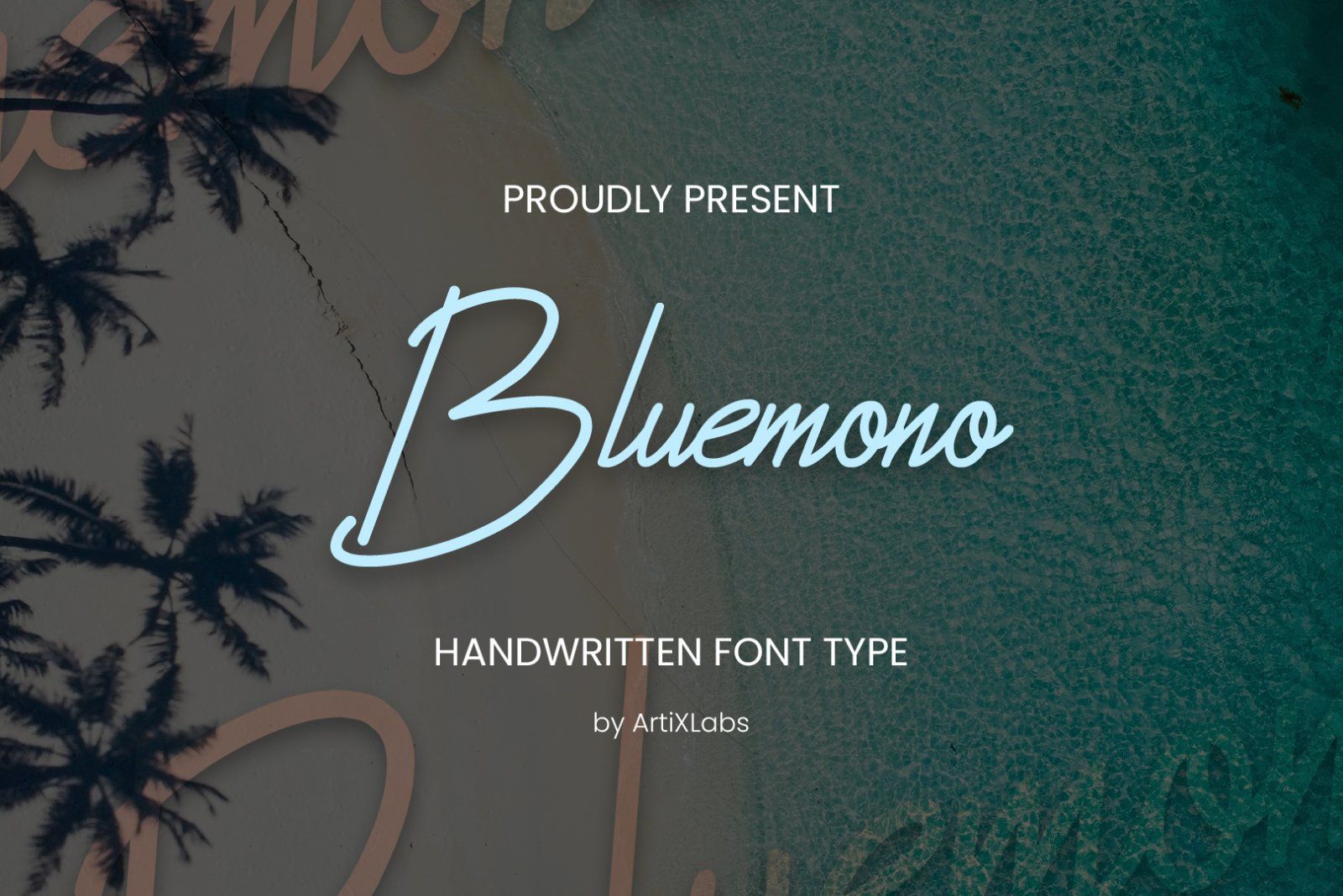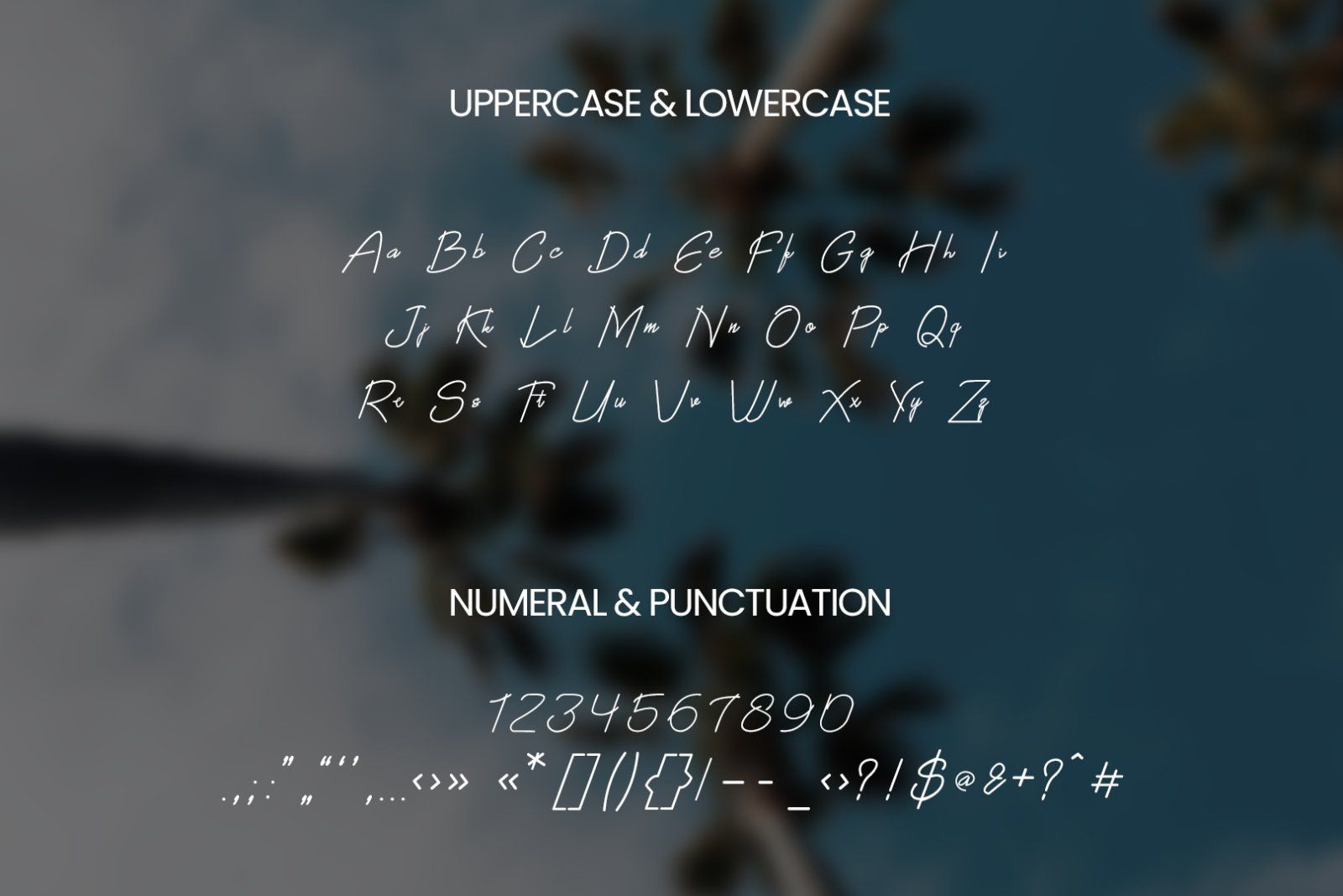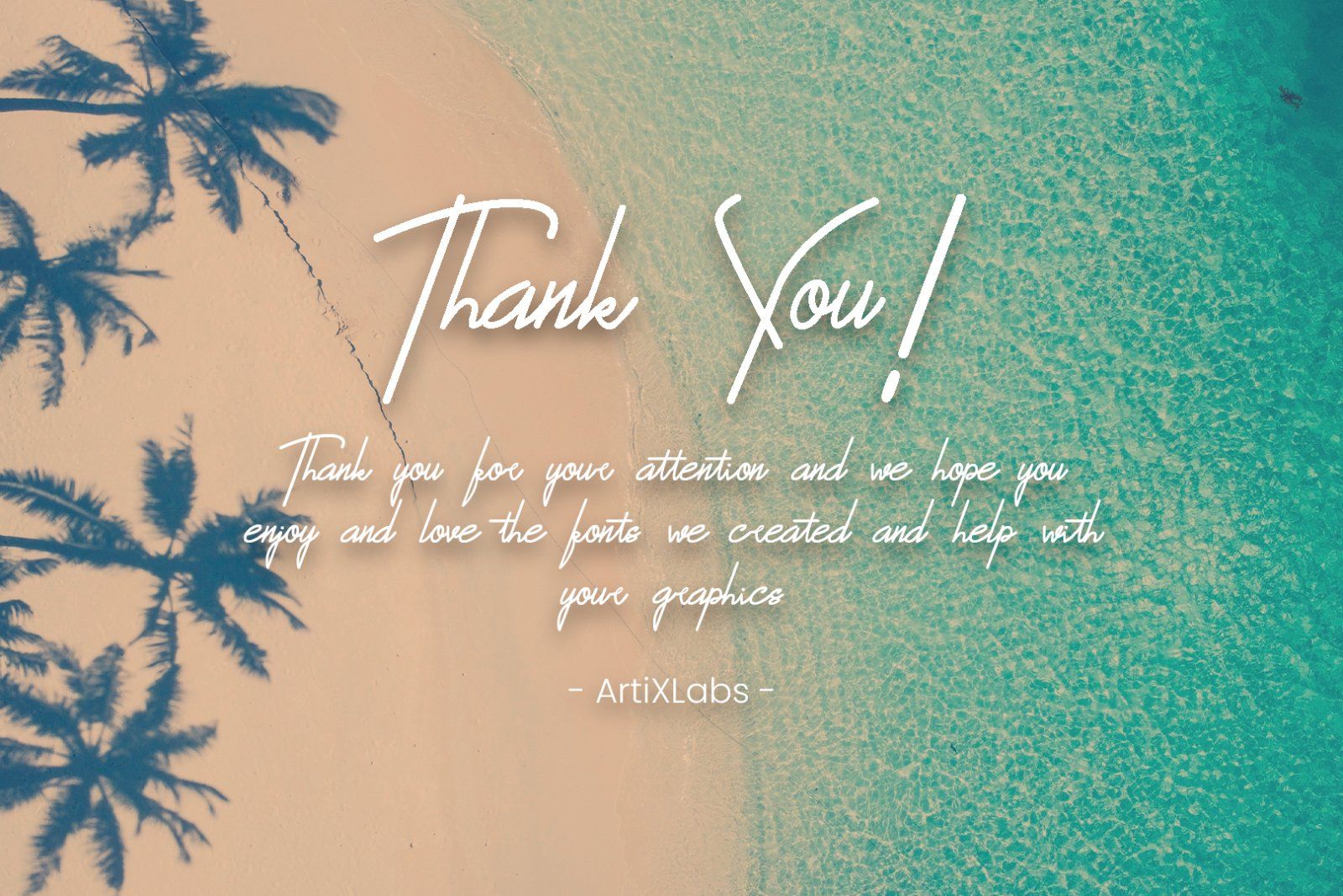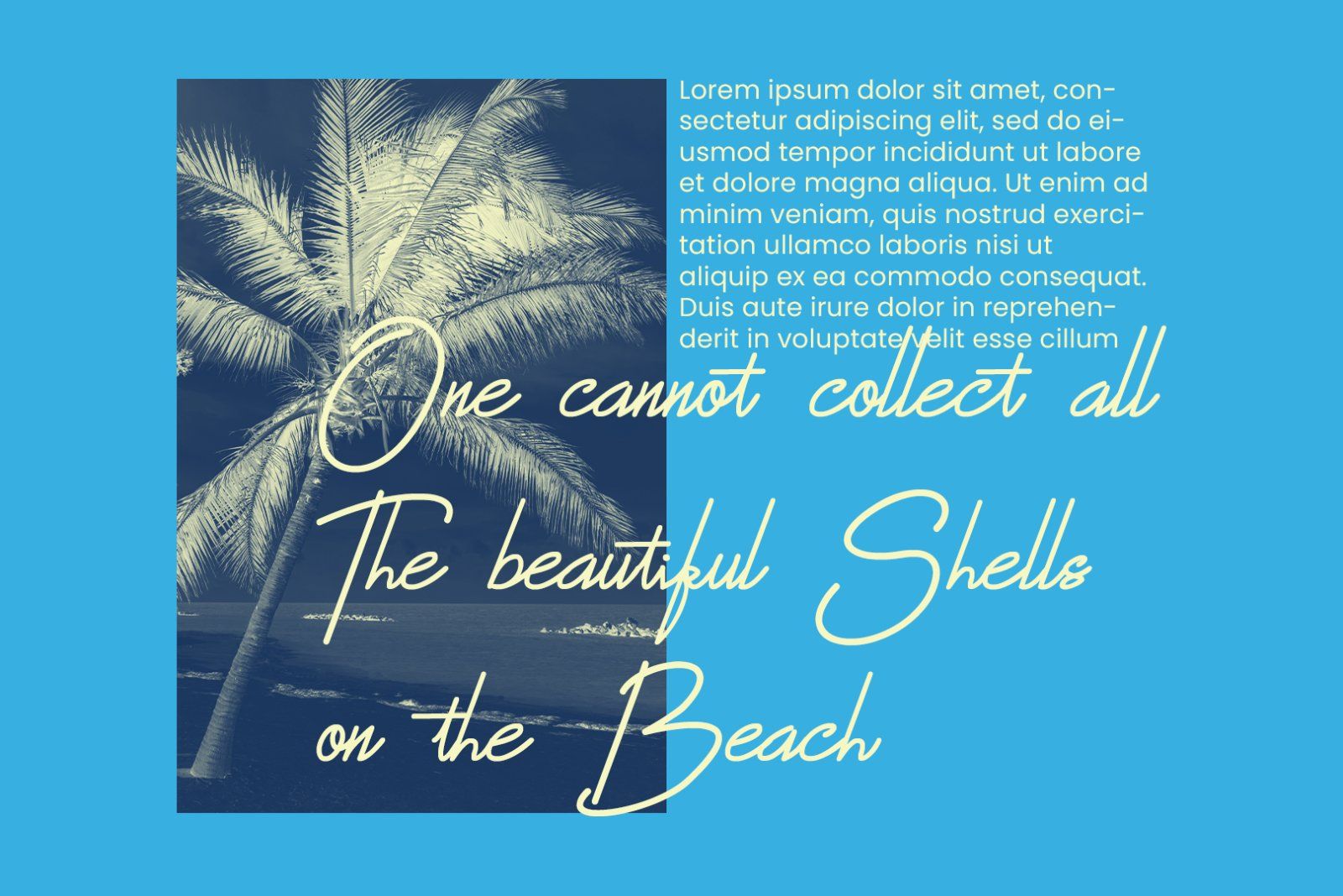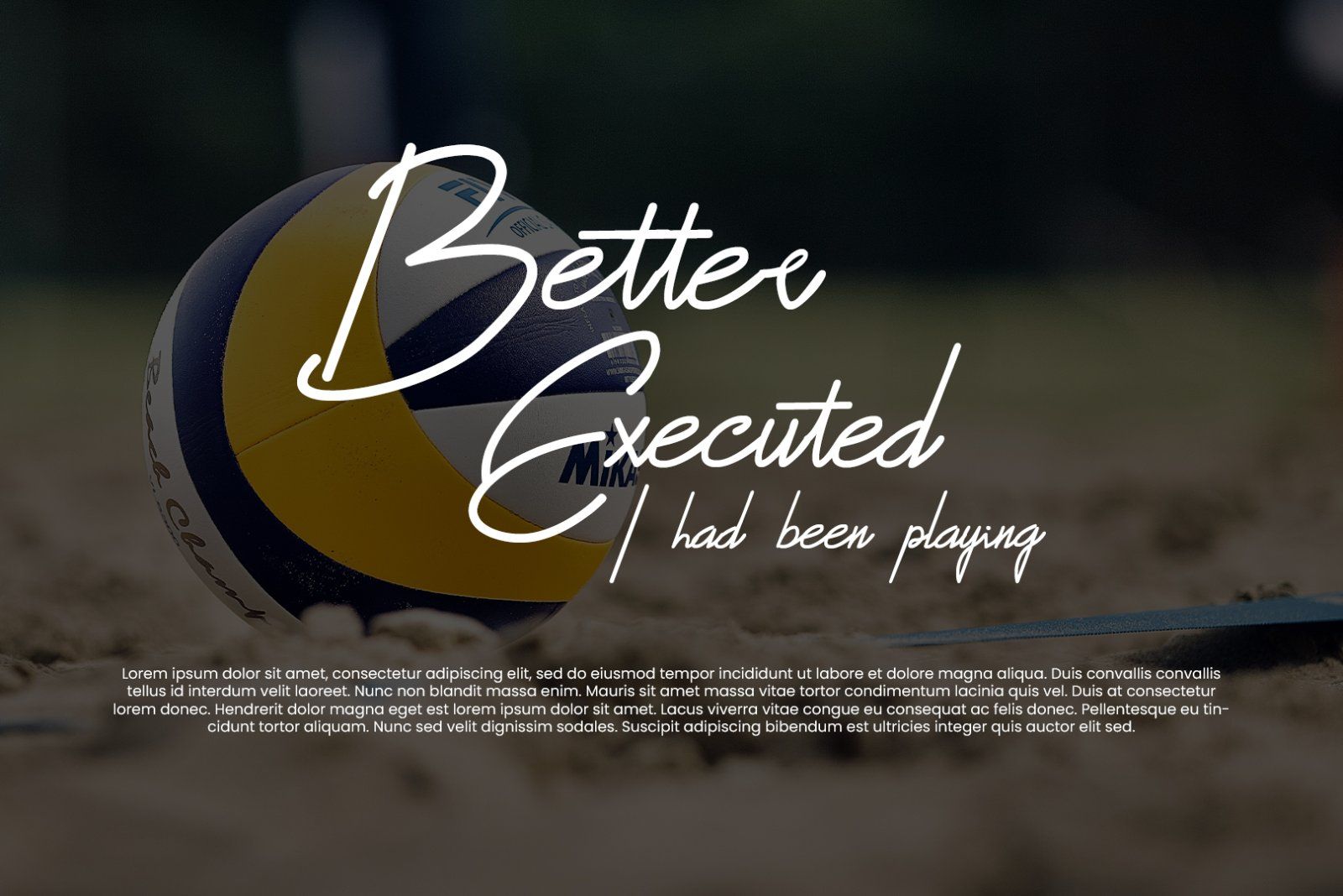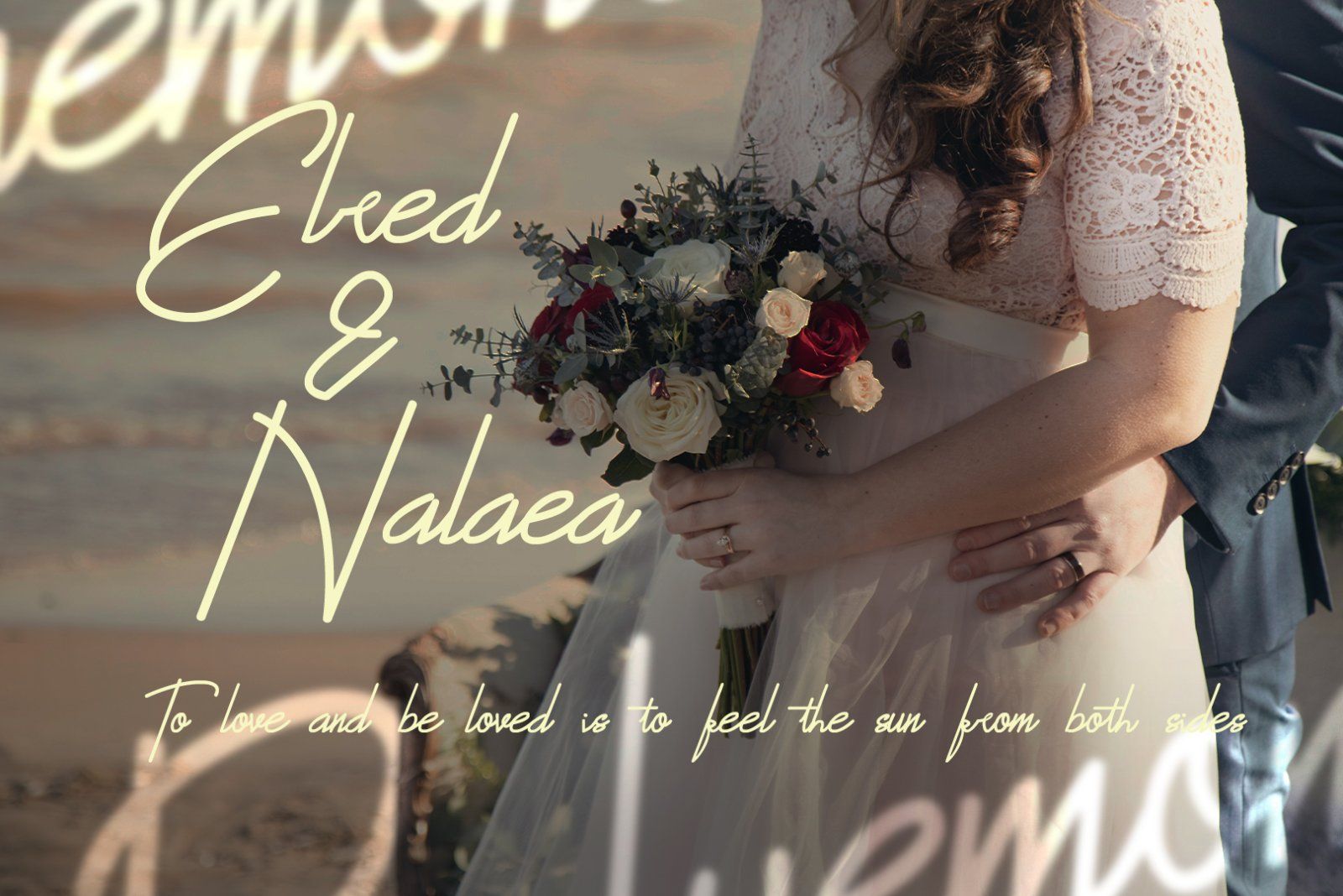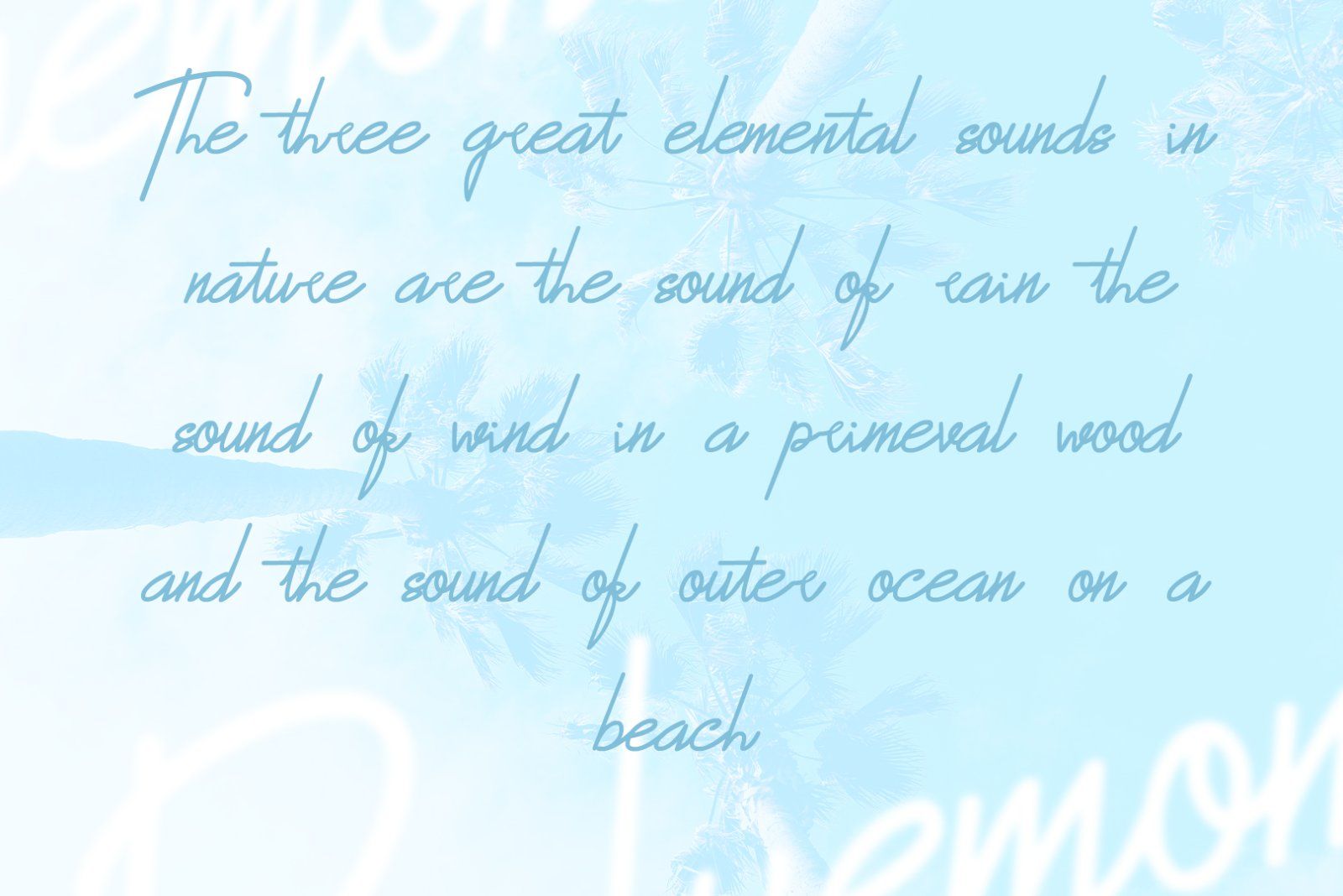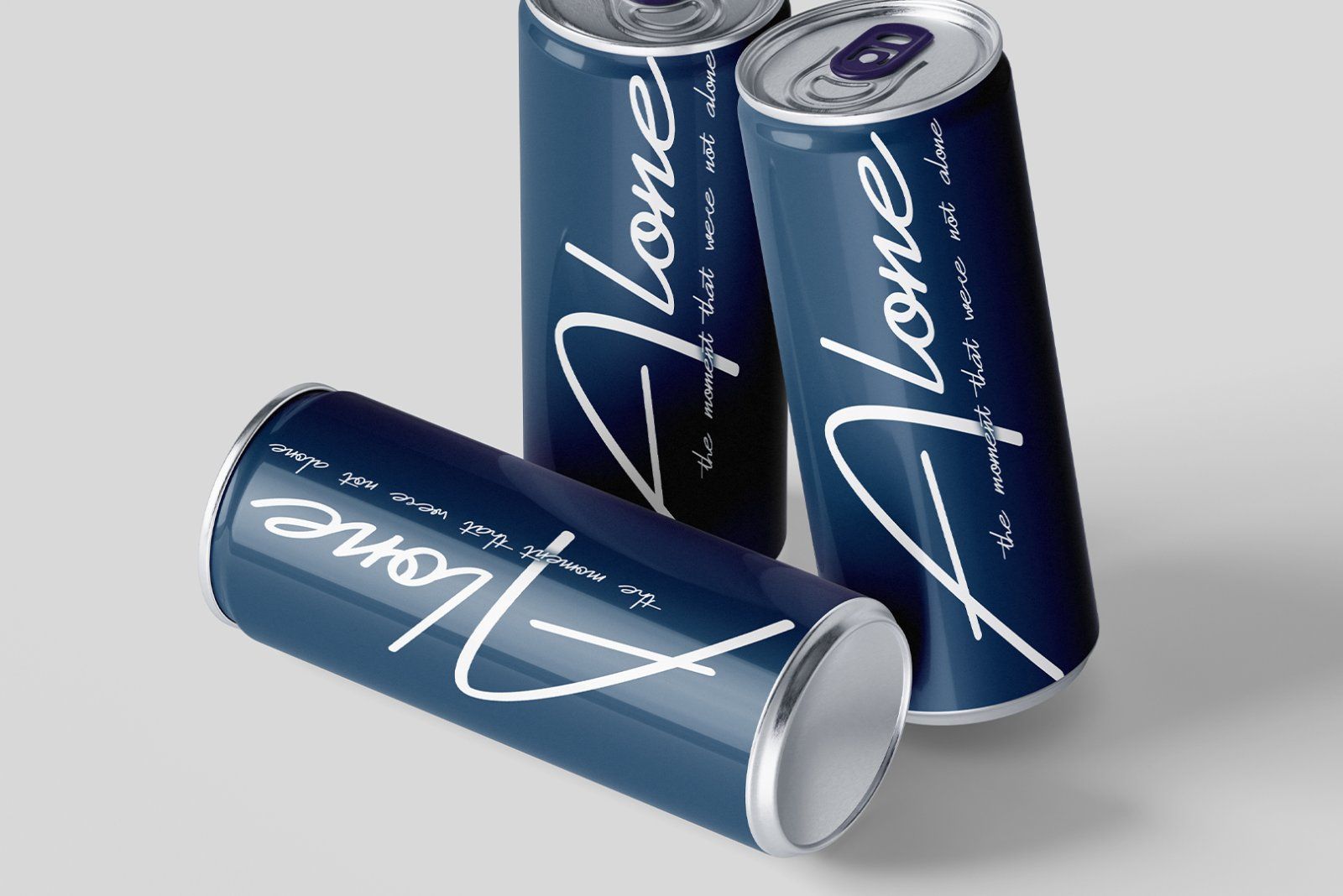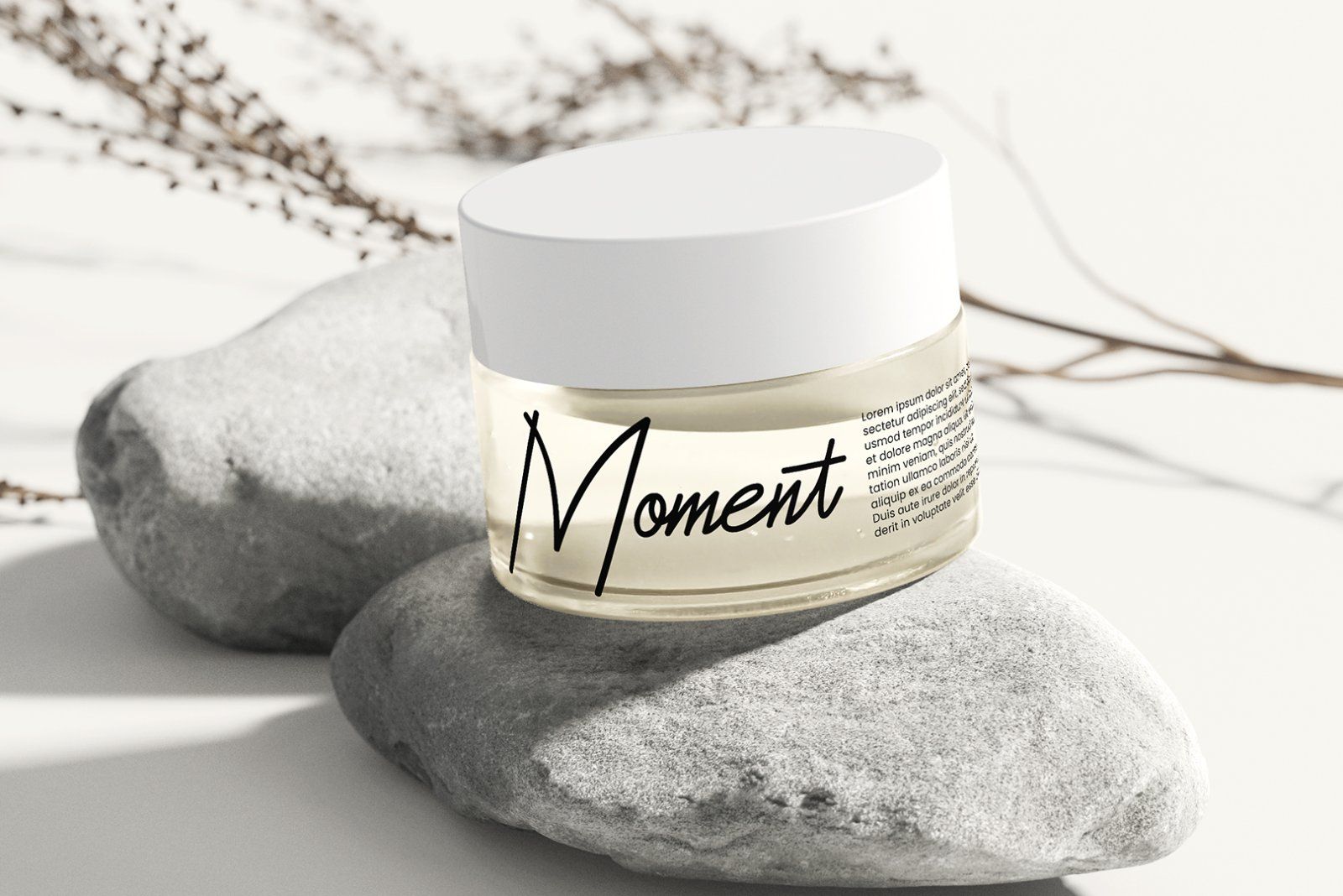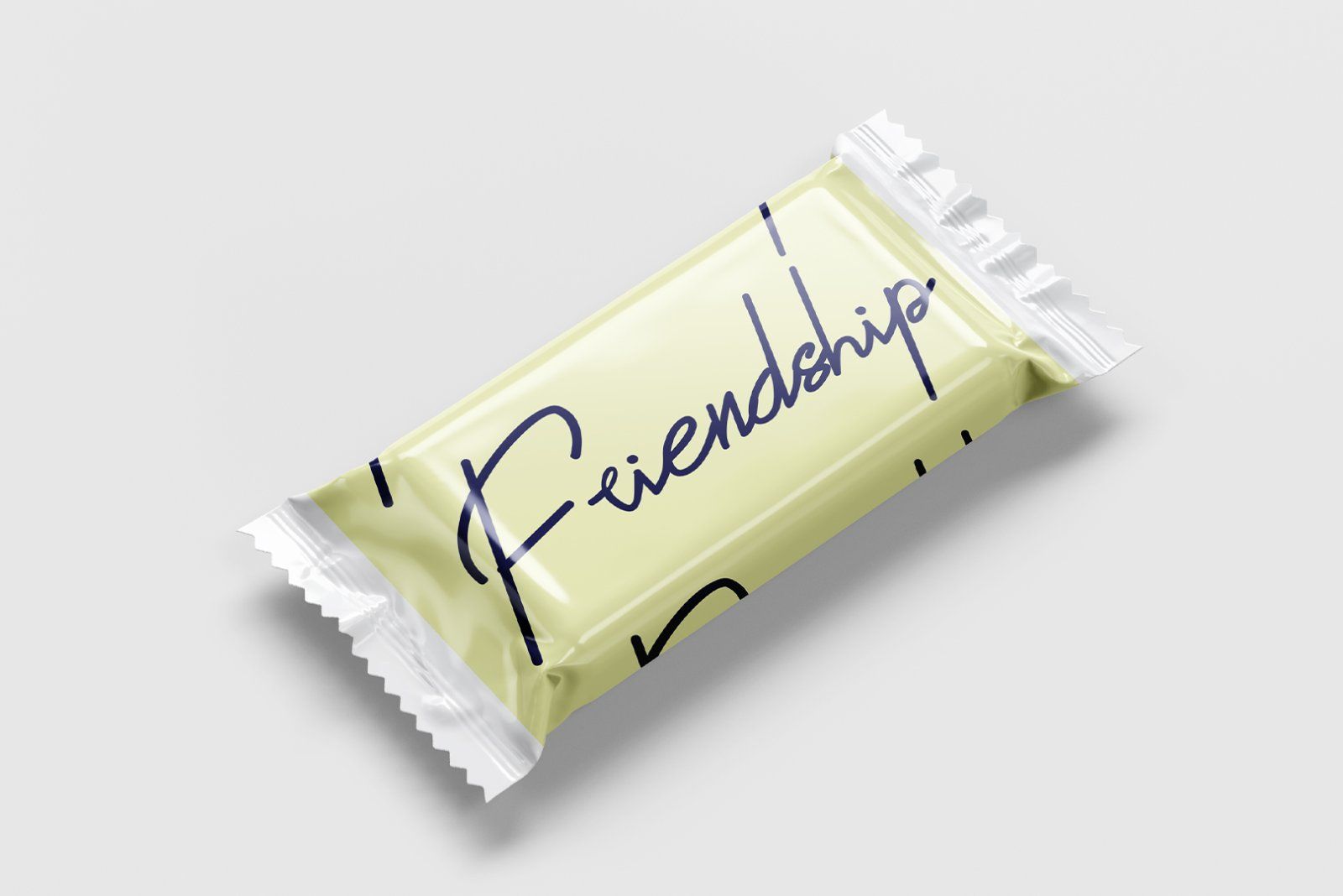
Introducing Bluemono - Handwritten Font
This Font can be used for any variety of purposes, such as:
Event, Birthday, Ceremony, Packaging Products, Logo Type, Branding, T-Shirt Design, Website/Blog, Headline Magazine, Brochures and also can be used for other purpose.
This Font Template contains Elegance, Stylish, Modern, Creative, Professional and Unique Concept.
FEATURES
• Uppercase & Lowercase letters
• Numbering and Punctuations